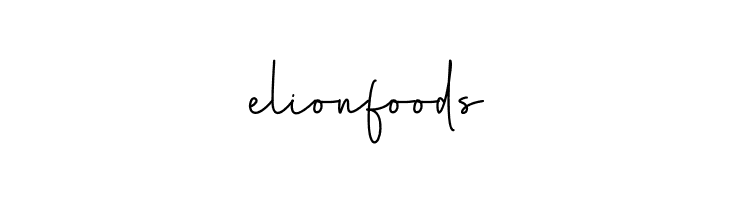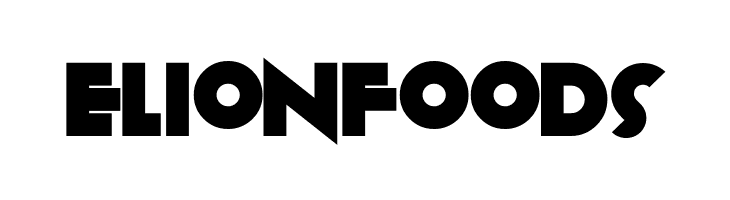
( Fonts by deFharo )
A bold, rounded font with a playful, modern look and thick outlines.
( Fonts by Makashi )
( Fonts by Ditya Ananto )
A bold, geometric font with characters enclosed in circles, offering high contrast and a modern look.
A bold, slanted font with rounded characters and consistent stroke width.
A bold, cursive font with flowing, connected letterforms and a sophisticated style.
A bold, digital dot matrix font with a retro, pixelated style.
A bold, geometric font with thick strokes and a modern, impactful style.
A bold, geometric font with sharp angles and clean lines, ideal for modern designs.
A bold, geometric font with block-like characters and tight spacing.
A pixelated, LED-inspired font with a retro digital aesthetic.
A casual, handwritten font with a friendly and approachable style.
( Fonts by Md Shohail Bhuian )
A playful and bold font with whimsical curves and dynamic strokes.
( Fonts by Timur Type )
A bold, playful font with rounded, cartoonish characters.
( Fonts by Mype Room )
A bold, artistic font featuring stylized human faces in profile view.
A bold, three-dimensional vintage-style font with strong, impactful characters.
A bold, distressed font with a vintage, rugged appearance.
A bold, modern sans-serif font with strong geometric shapes.
A bold, condensed typeface with strong geometric shapes and high contrast.
A bold, modern font with high contrast and unique stroke variations.
( Fonts by Xerographer Fonts )
A bold, textured font with a handcrafted, vintage appearance.
A bold, modern sans-serif font with clean lines and geometric structure.